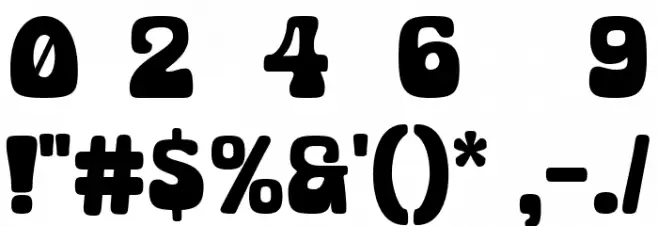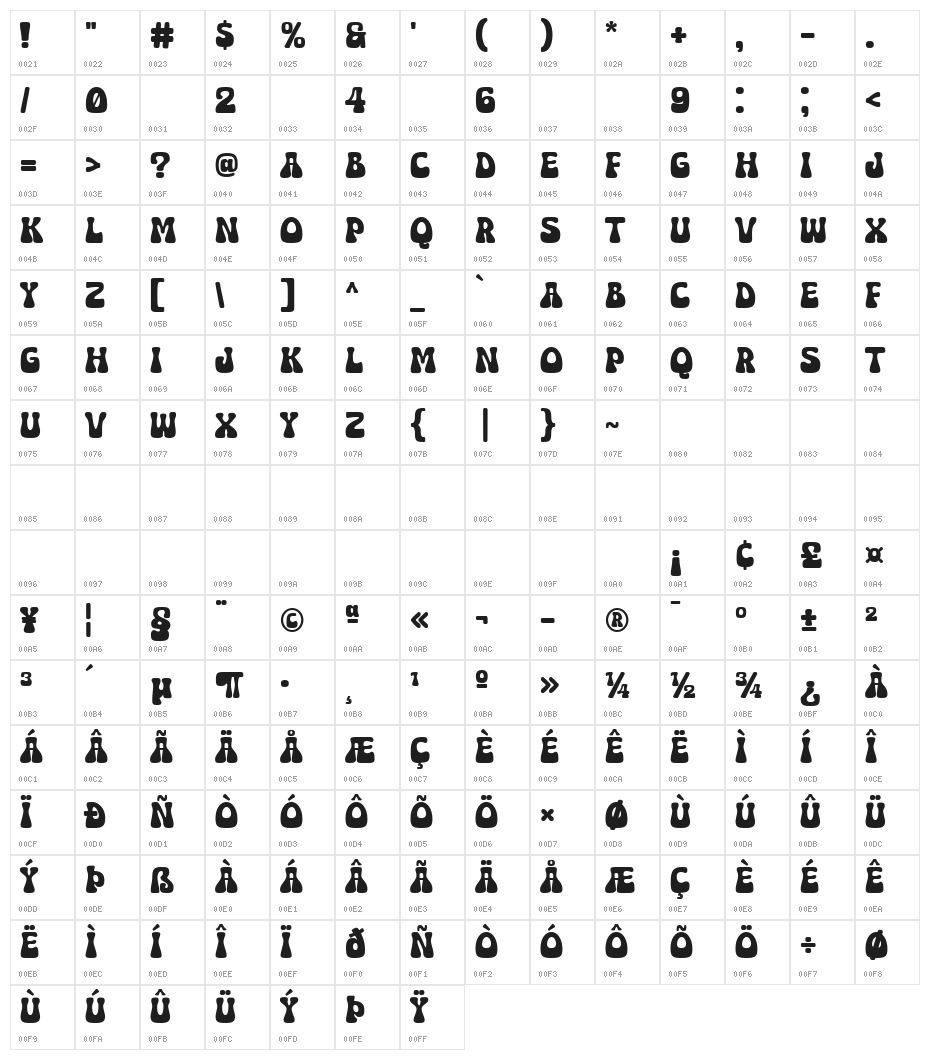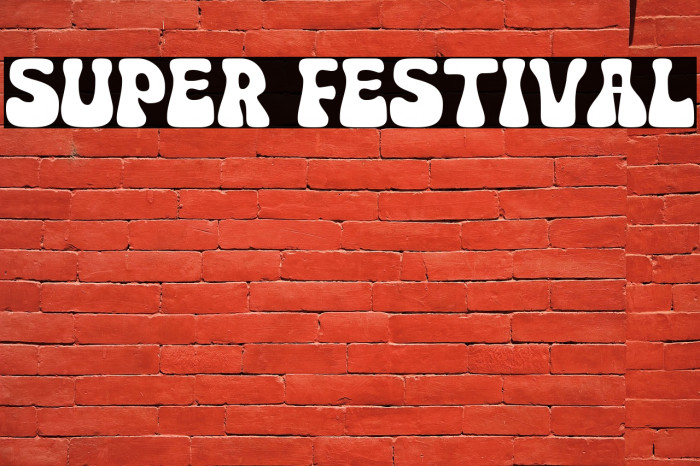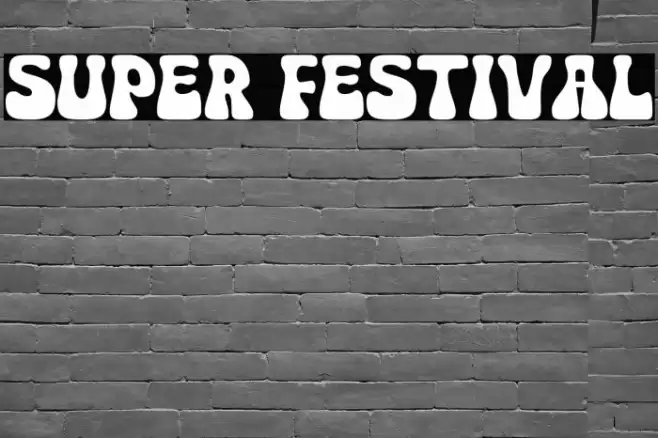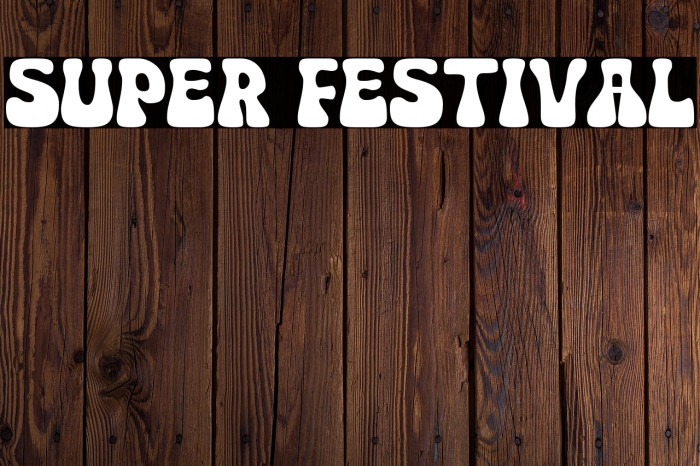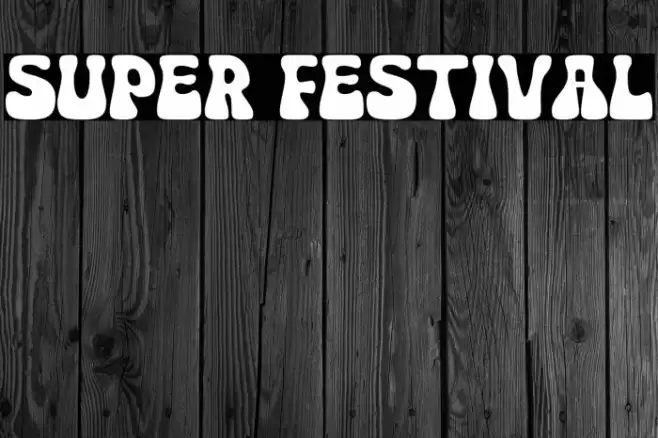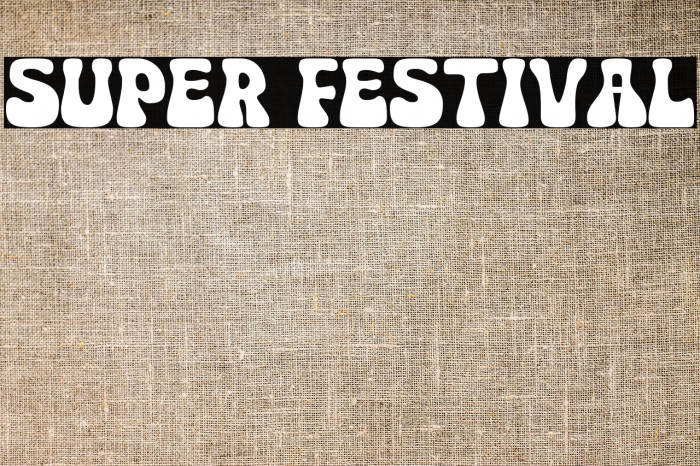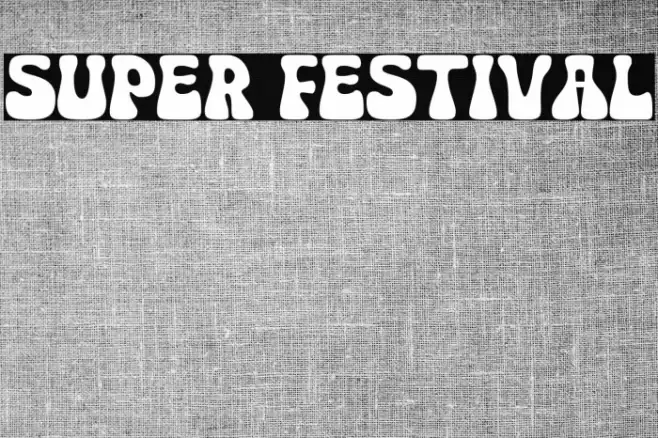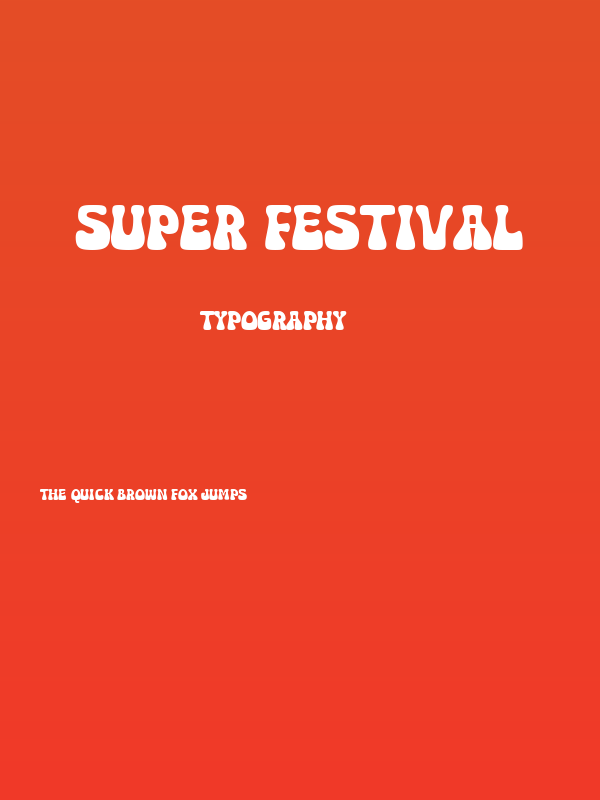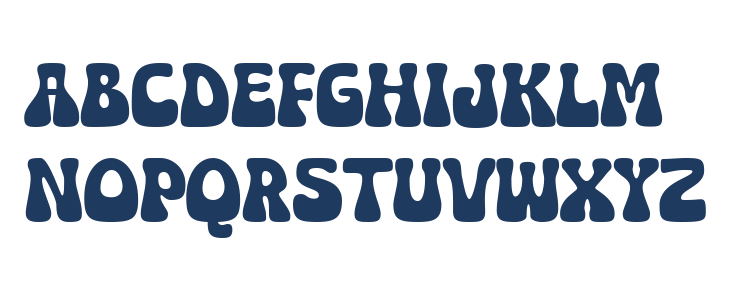
Super Festival Font
Super Festival Description
This font features a bold and playful design with rounded, bubbly characters that exude a sense of fun and whimsy. The letters are thick and have a soft, inflated appearance, making them stand out with a strong visual presence. The style is consistent across uppercase and lowercase letters, as well as numbers and special characters, maintaining a cohesive look. The font's unique character shapes and exaggerated curves give it a distinctive, eye-catching quality that is perfect for creative and informal applications.
| Proposed Projects | Great for children's books, party invitations, posters, and playful branding. |